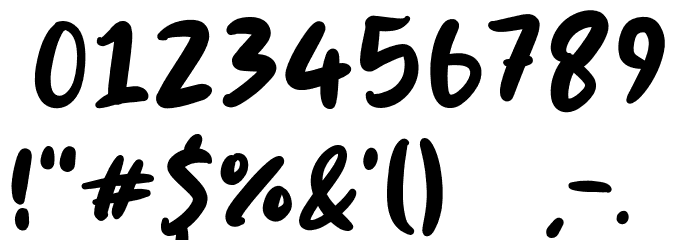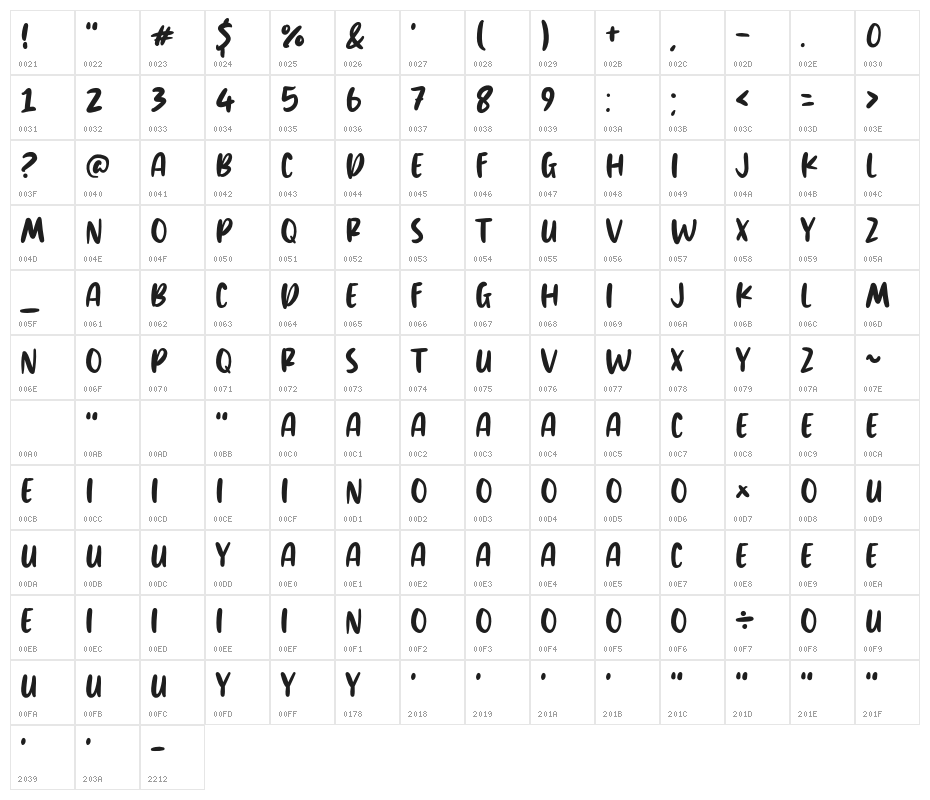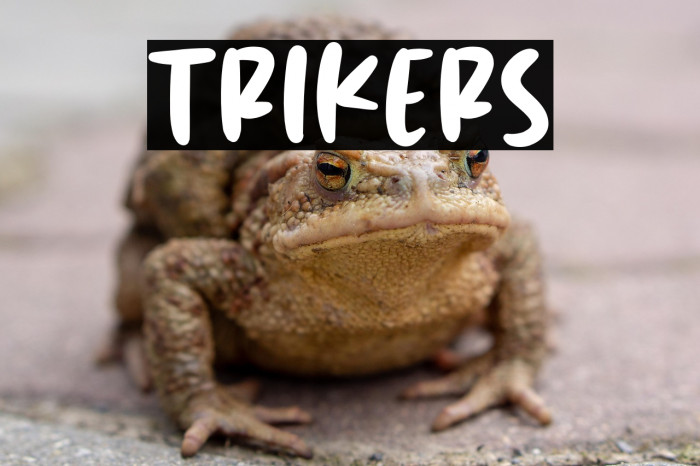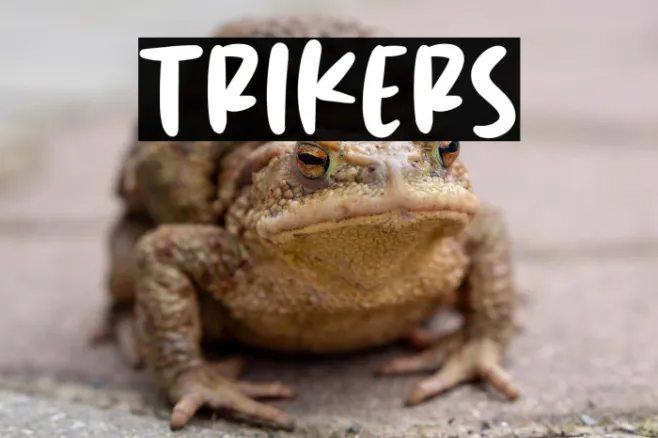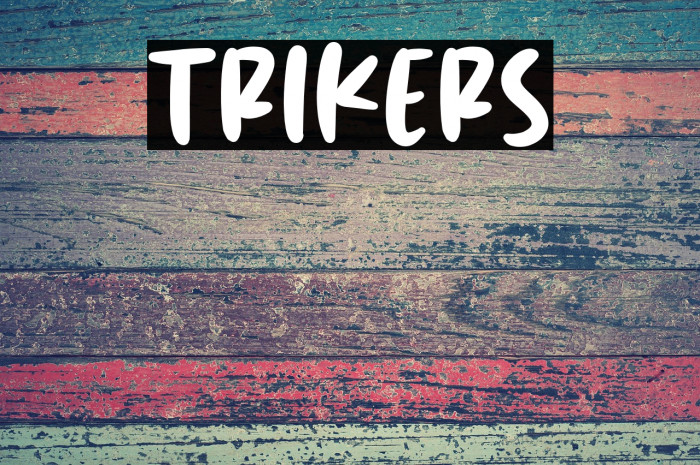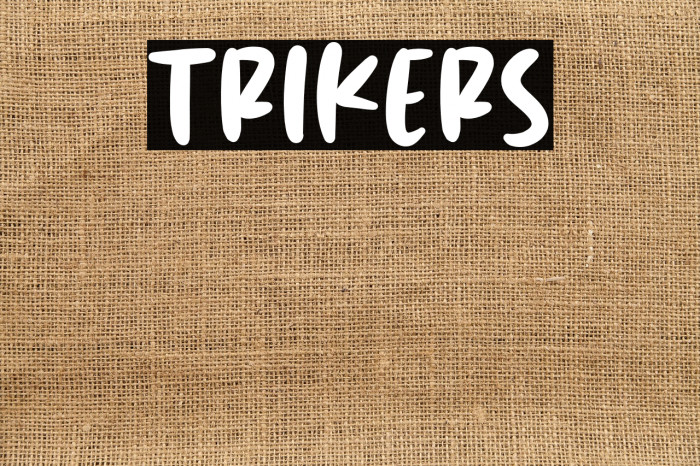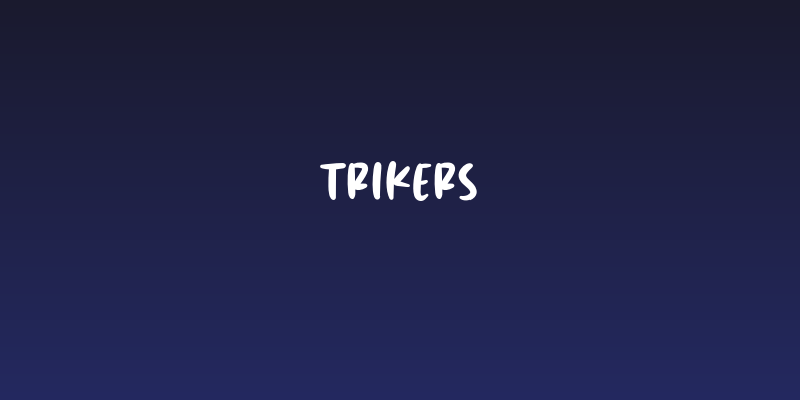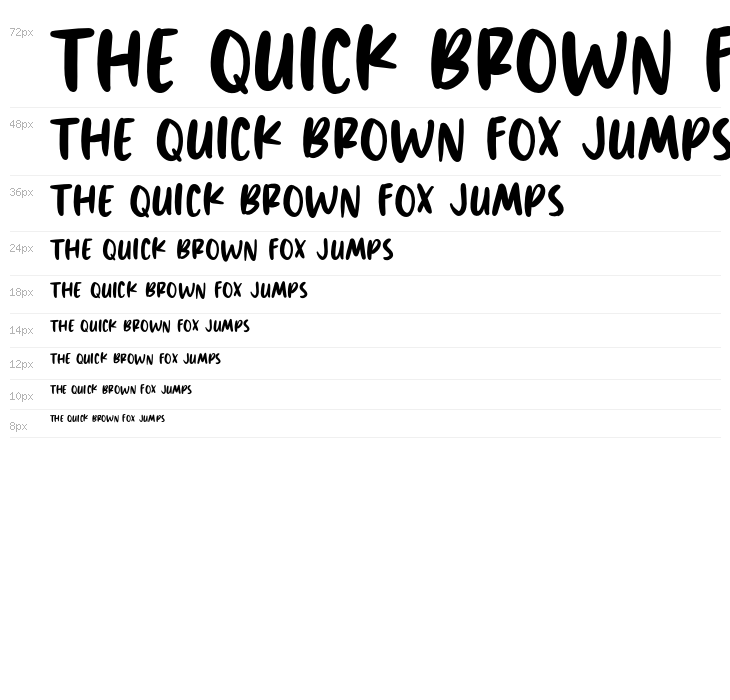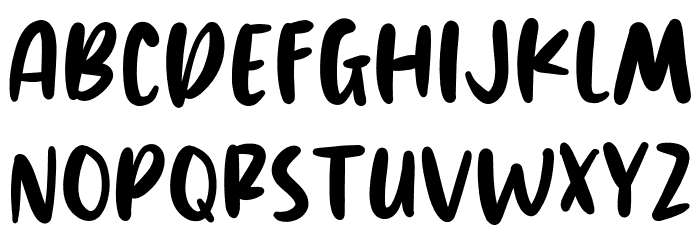
Trikers Font
Trikers Description
This font exudes a playful and energetic vibe, characterized by its bold and handwritten style. The letters are slightly slanted, giving a casual and informal appearance. Each character is crafted with a consistent thickness, providing a uniform look across the alphabet. The rounded edges and smooth curves contribute to its friendly and approachable feel. The numbers and special characters maintain the same playful style, ensuring cohesion throughout. This font is ideal for projects that require a touch of personality and creativity.